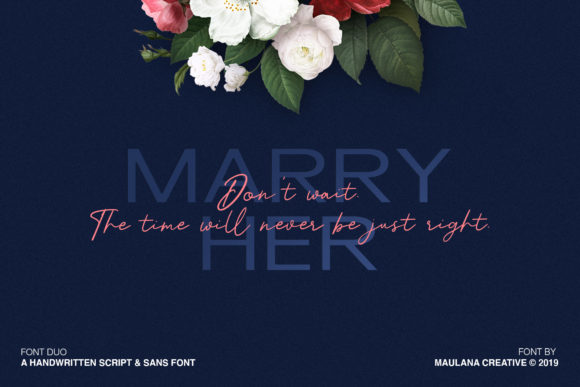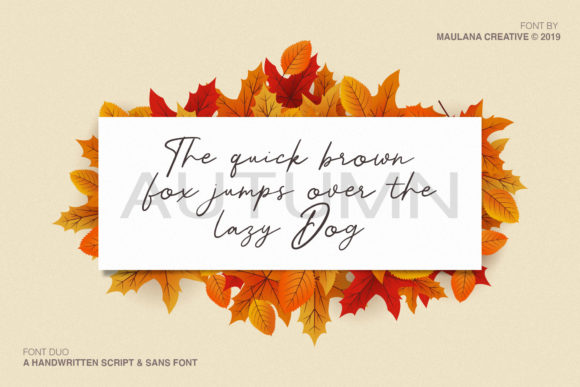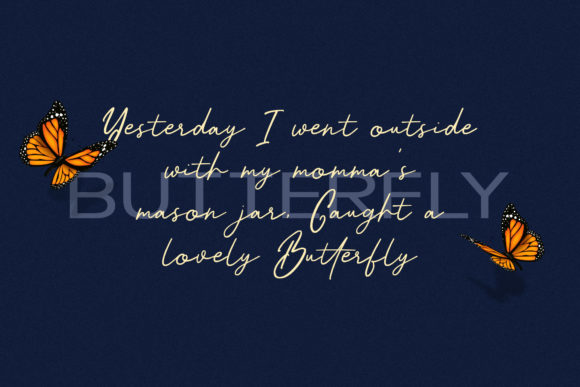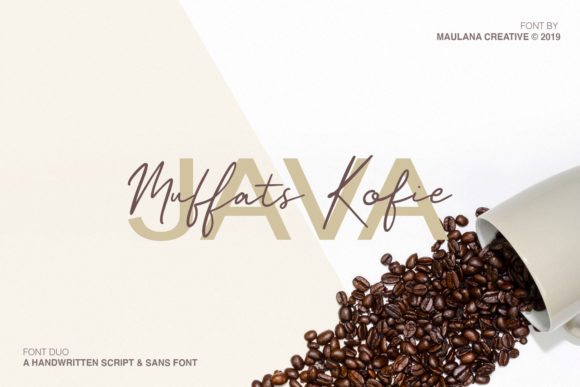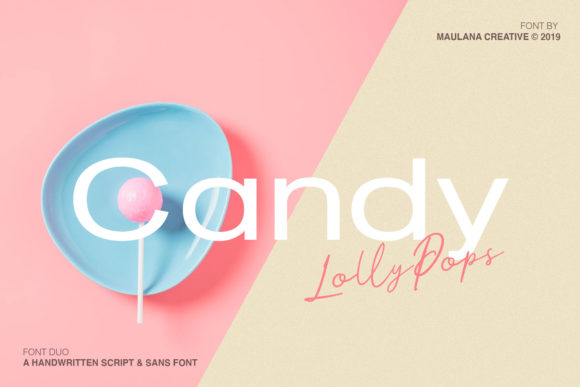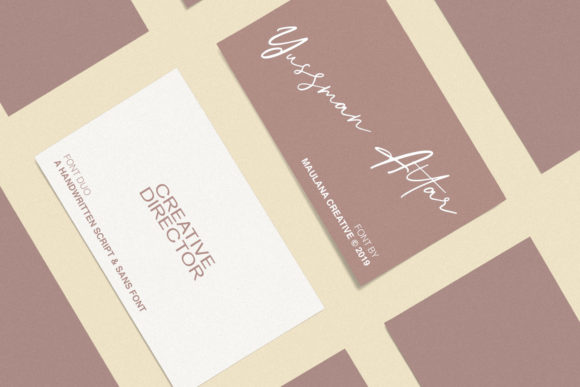
Unleashing Creativity with the Perfect Pair
Have you ever been in the midst of a design project, struggling to find the perfect combination of fonts to convey your message? The cursor blinks, and your mind goes blank as you scroll through endless options. But what if you stumbled upon a font duo that not only makes your designs stand out but also simplifies the process?
Meet Asheville Duo Font, a stunning pairing of a gorgeous script and a modern sans serif font. This dynamic duo is designed to elevate your creative projects, whether you’re a graphic designer, writer, or social media influencer. By combining these two fonts, you’ll unlock a world of possibilities and achieve extraordinary results that leave a lasting impression.
- Unique Characteristics: Asheville Duo Font features a unique blend of modern and vintage elements, with bold lines, geometric shapes, and subtle texture, making it perfect for creating eye-catching designs.
Asheville Duo Font Review
The Asheville Duo font is a beautiful, elegant script font that works wonderfully for creative and artistic projects. ✨ I love how it flows smoothly and has a natural feel to it, making it perfect for handwritten-style quotes, titles, and even body text. The font’s flexibility allows it to be used in various contexts, from wedding invitations to digital art.
The Asheville Duo font has a range of features that make it an excellent choice for designers. ✨ Some of the key benefits include:
- Smooth, connected strokes for a natural feel
- Highly customizable with various font weights and styles
- Works well in both digital and print formats
However, as with any font, there are some limitations to consider. ⚠️ One of the main drawbacks is the potential for legibility issues in small font sizes or when used extensively in body text. Additionally, the font may not be suitable for formal or corporate projects, as it has a more creative and artistic feel.
Overall, the Asheville Duo font is a great addition to any designer’s toolkit. While it may have some limitations, its beauty and versatility make it a worthwhile choice for creative projects. ✨ With careful use and consideration of its limitations, the Asheville Duo font can help elevate any design to the next level.
Asheville Duo Font is a versatile font suitable for various design projects, including wedding invitations, restaurant menus, and product packaging. To get the most out of this font, use it in combination with bold typography and creative layouts. Consider pairing the font with images or graphics to add visual interest and create a unique design aesthetic.